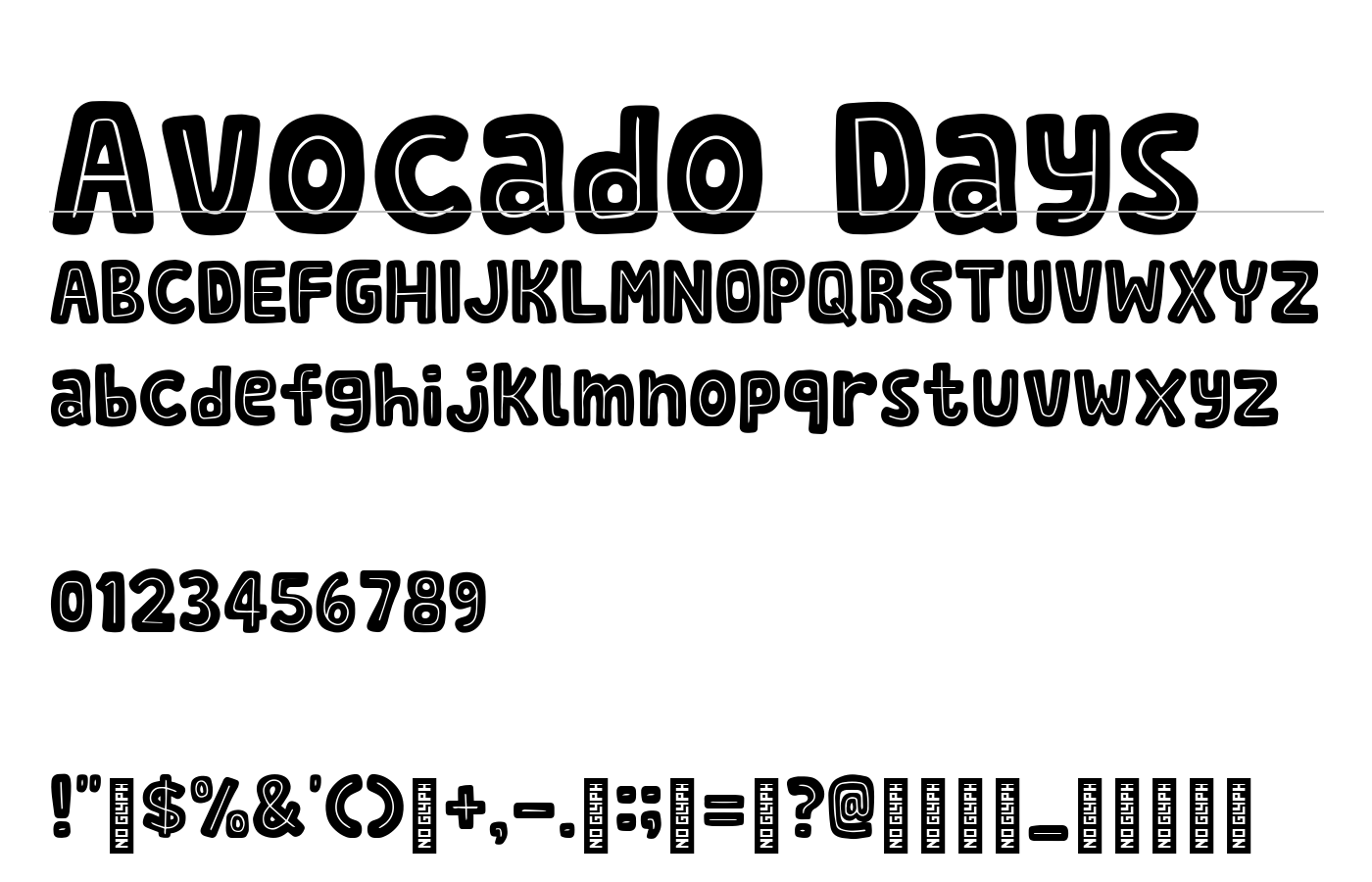
Avocado Days is a playful and bold sans serif font featuring rounded, chunky letterforms with a casual, hand-drawn feel. Its lively shapes and consistent stroke weight make it ideal for fun, informal designs such as children's books, branding, and eye-catching headlines. This font adds a friendly and approachable personality to any creative project seeking a warm, whimsical vibe.
Avocado Days Font
About Avocado Days Font